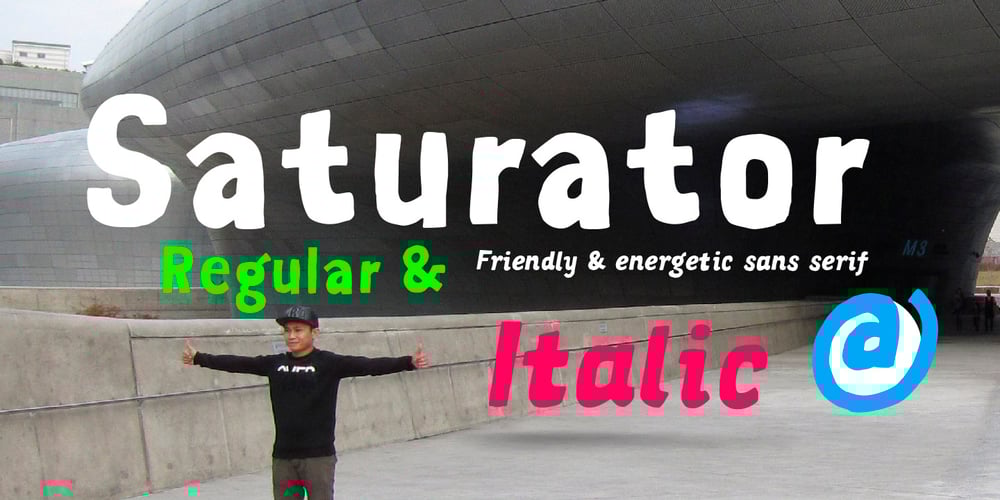
Saturator FA Font Family was designed by Magdalena Frankowska and published by Fontarte. Saturator FA contains 2 styles and family package options. Inspired by hand lettering and vernacular typography. Its informal and friendly character allows for different creative ways of usage. It is recommended for publishing, advertising and branding to get fresh handmade feeling. First version of Saturator FA Regular was designed by Magdalena Frankowska in 2007 and used successfully by many graphic designers all over the world. New version of Saturator FA is broadened with more diacritic characters for most of Latin languages. In 2016 new styles: Italic, Serif and Serif Italic were designed to enrich the Saturator FA family.